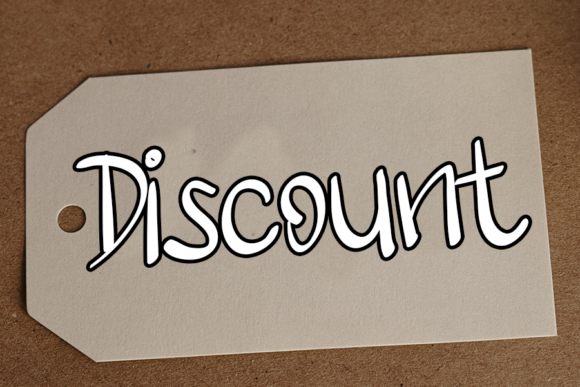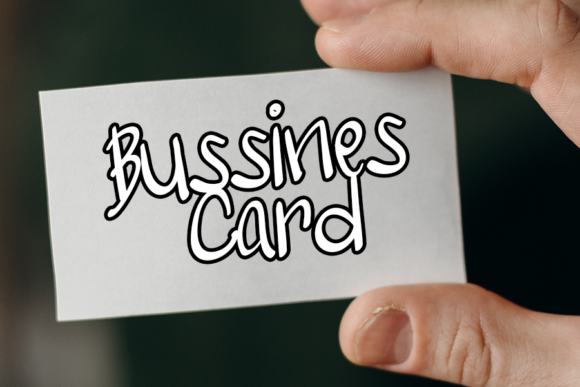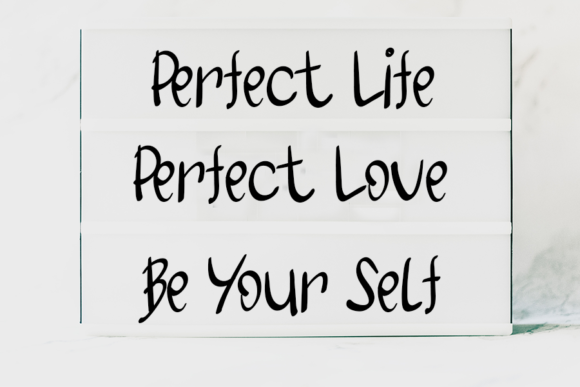
Perfect Love Font
About Perfect Love Font
Perfect Love is a neat lettered handwritten font. It can be used for various purposes such as logos, headings, t-shirts, letterhead, signage, labels, news, posters, badges and so much more.